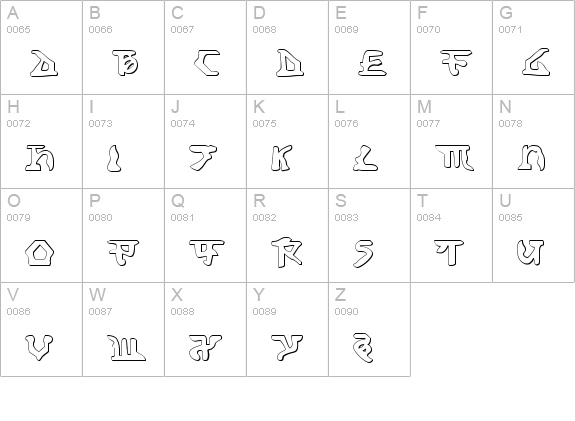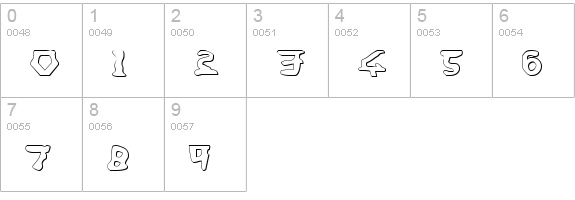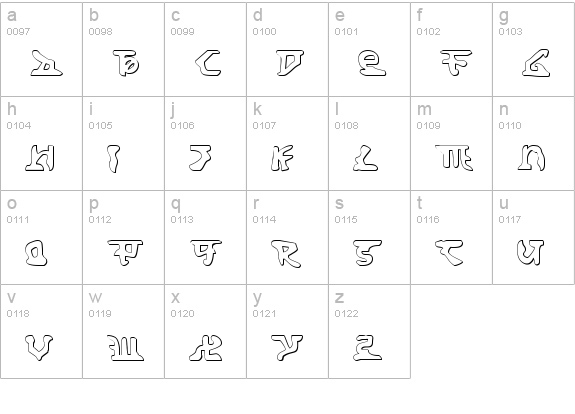
The Homeworld Translator Shadow font is a striking and futuristic typeface that exudes a sense of mystery and otherworldly charm. Its intricate design features sharp edges and bold lines that give it a unique and eye-catching appearance. This font is perfect for adding a touch of sci-fi flair to your designs, whether you're working on a project related to space exploration, technology, or the unknown. What sets the Homeworld Translator Shadow font apart is its ability to evoke a sense of adventure and discovery, making it ideal for use in branding, posters, book covers, and more. Its sleek and modern look will captivate your audience and draw them in with its bold presence. The best part? The Homeworld Translator Shadow font is available for free download at FontsMarket.com, making it easily accessible for all your creative endeavors. Don't miss out on the opportunity to add this stunning font to your collection and elevate your designs to new heights. Unlock the potential of the Homeworld Translator Shadow font and let your imagination soar.